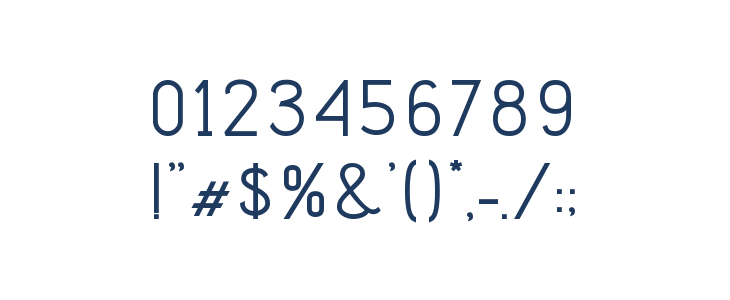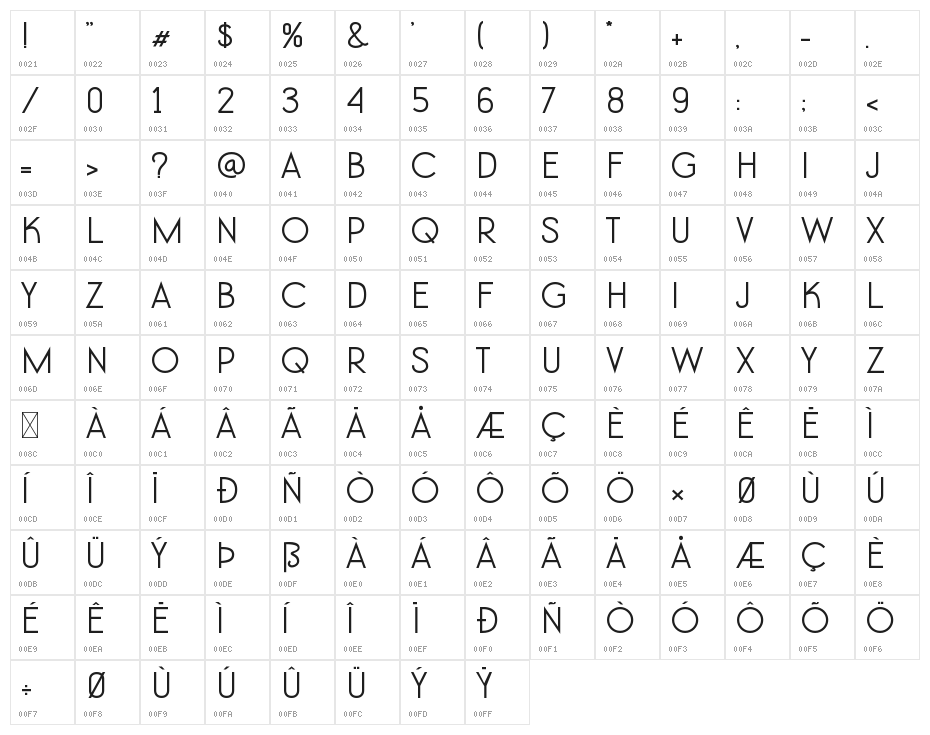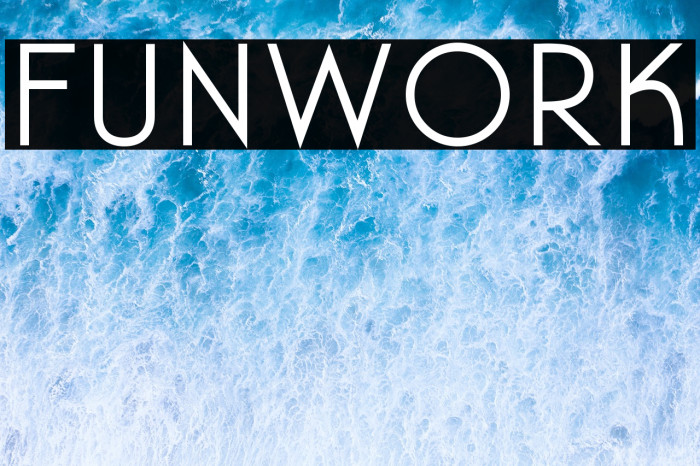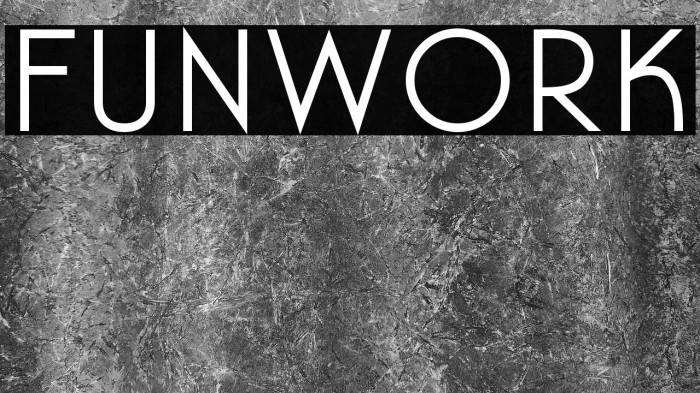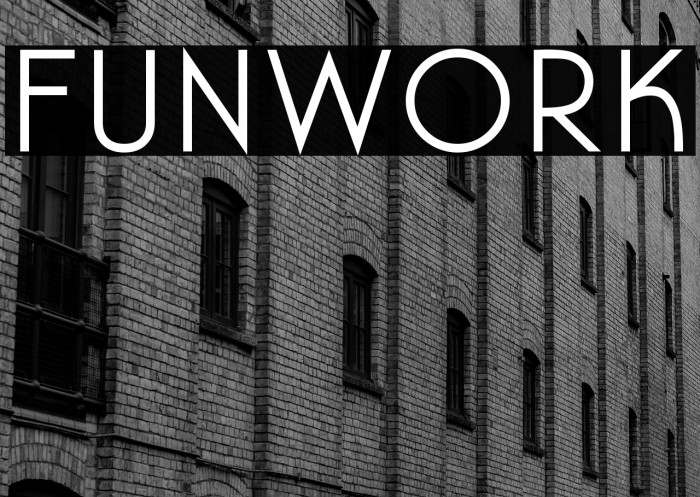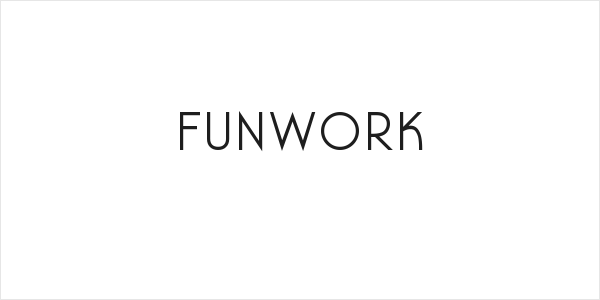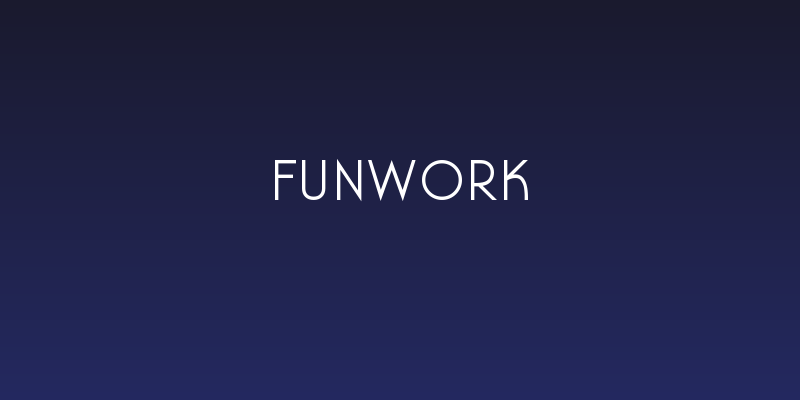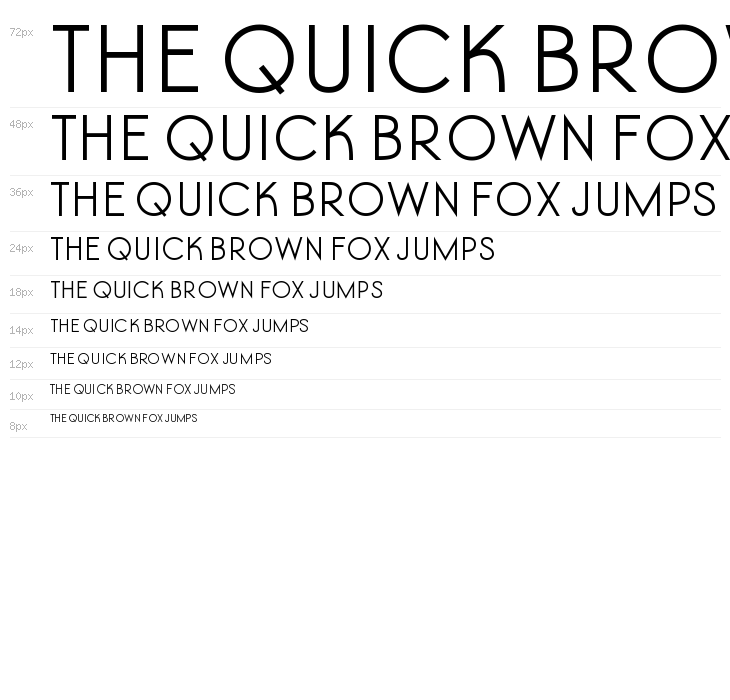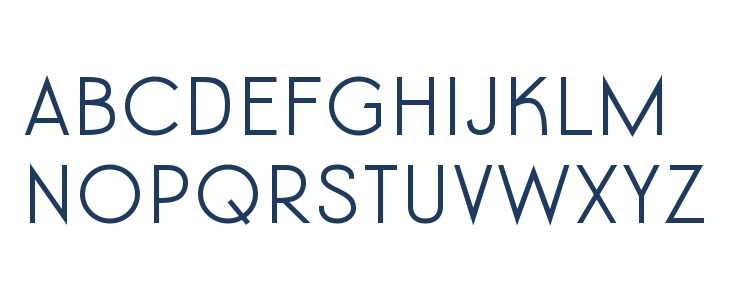
Funwork Font
Funwork Description
This font features a clean and modern sans-serif style with uniform stroke widths, giving it a sleek and contemporary appearance. The characters are well-proportioned, with a geometric influence that enhances readability and aesthetic appeal. The uppercase and lowercase letters maintain a consistent design, while the numerals and special characters complement the overall look. This font's simplicity and clarity make it versatile for various design applications, ensuring it stands out without overwhelming the viewer.